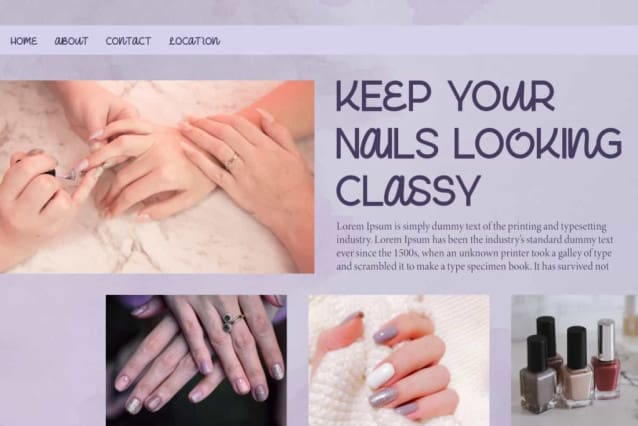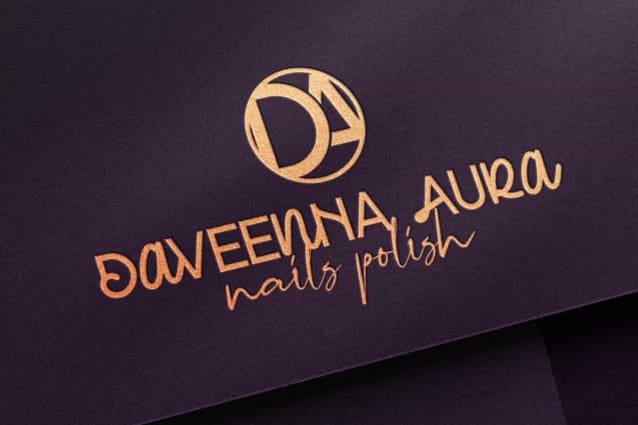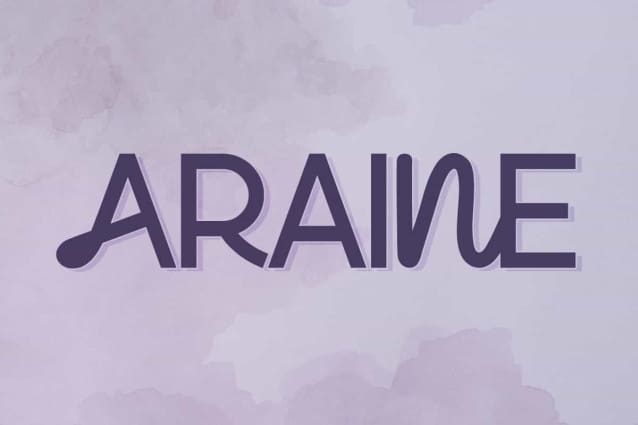
Araine Font
Araine Font is a fun and modern font duo in one font package. This font has a cute look with a combination of Script and Sans Serif characters. It will suits many designs, such as cover, custom design, gift box, invitation, label, poster, product packaging, quotes, screen printing, signage, stationery, title, website, and more!
Araine Font includes a complete set of Uppercase and Lowercase Basic Characters in a different form than usual, Numerals, Punctuation, and Symbol. This font also contain Alternate characters so will be perfect for many industries, such as accessories and jewelry, advertising, beauty product, craft, event or wedding organizer, fashion, florist, home furniture, perfume, resort, restaurant, etc.